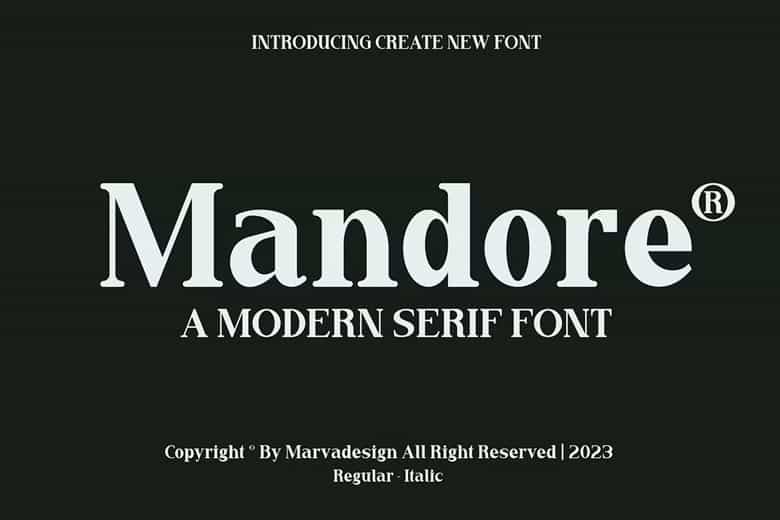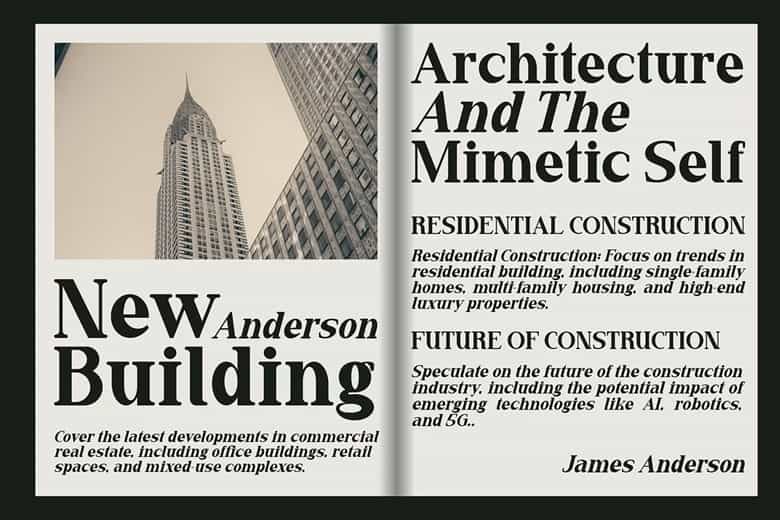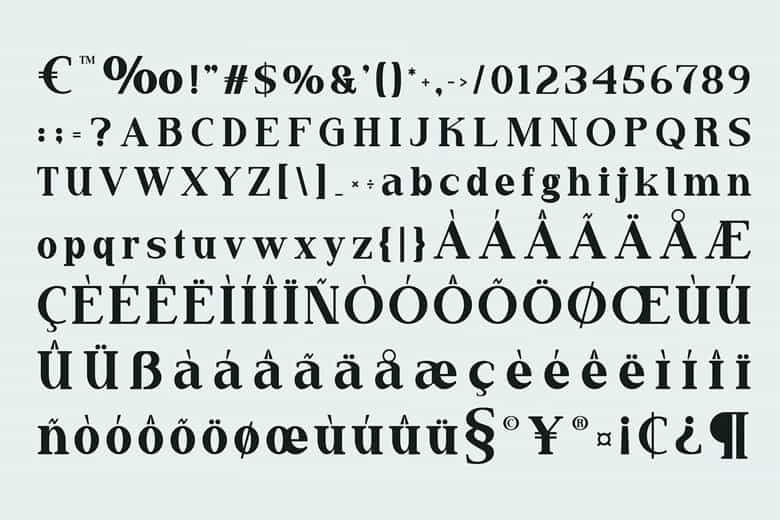
Mandore is a new serif font. Mandore will give any project a bit of sophistication with its clean lines and modern look. Be it a smooth logo or exquisite invites this font adds a fashionable perspective without jeopardizing the readability. Make your truly timeless, yet modern, typography with Mandore.